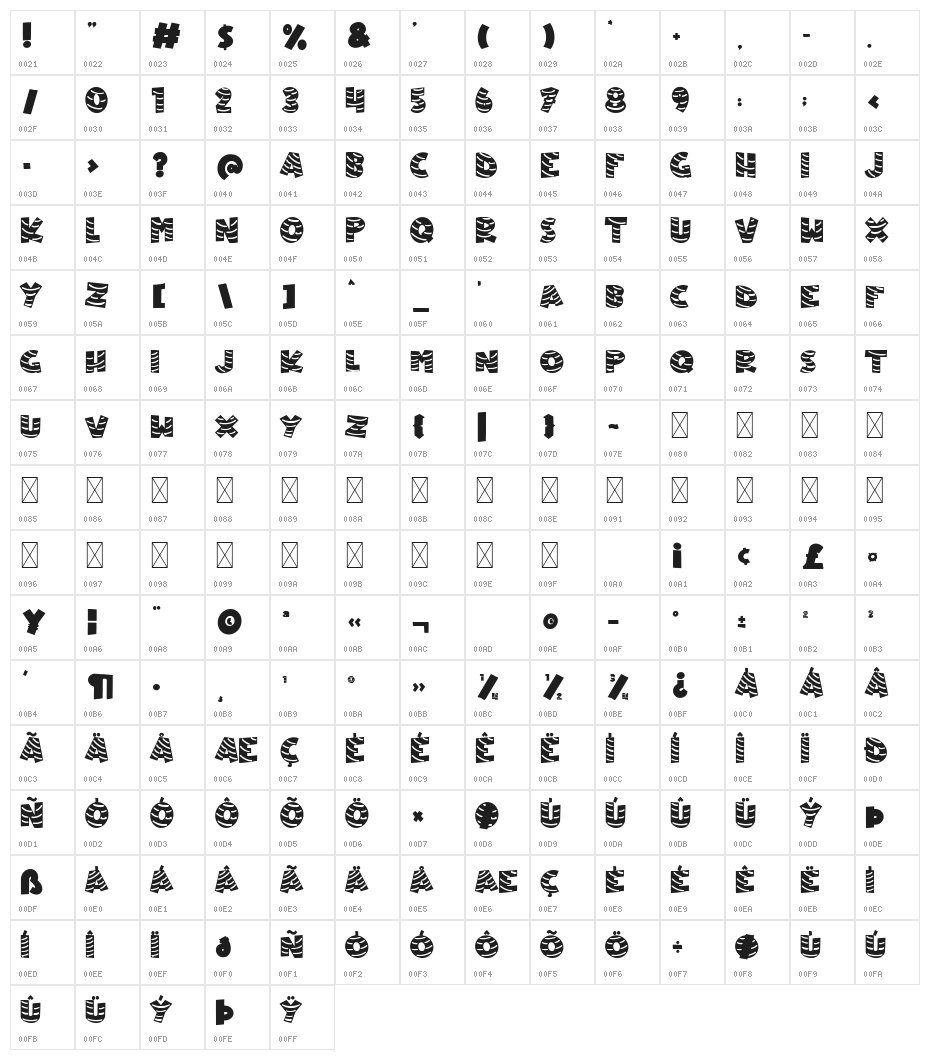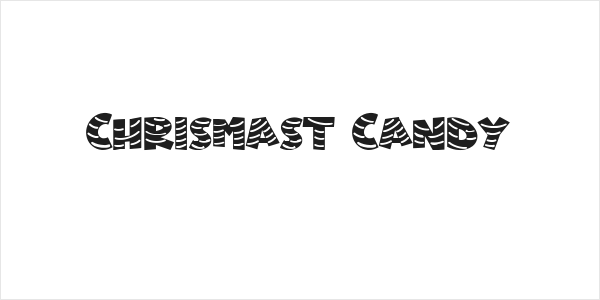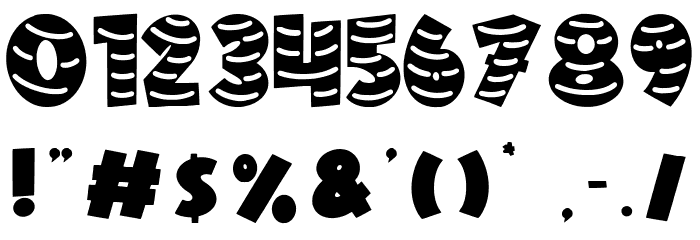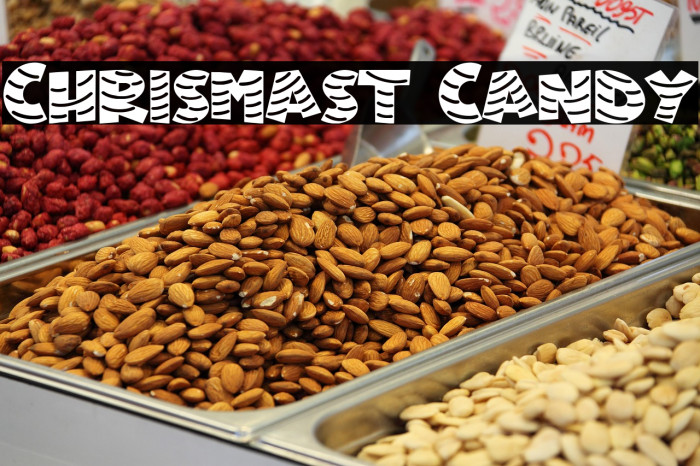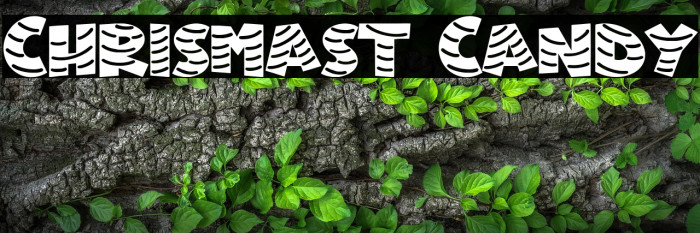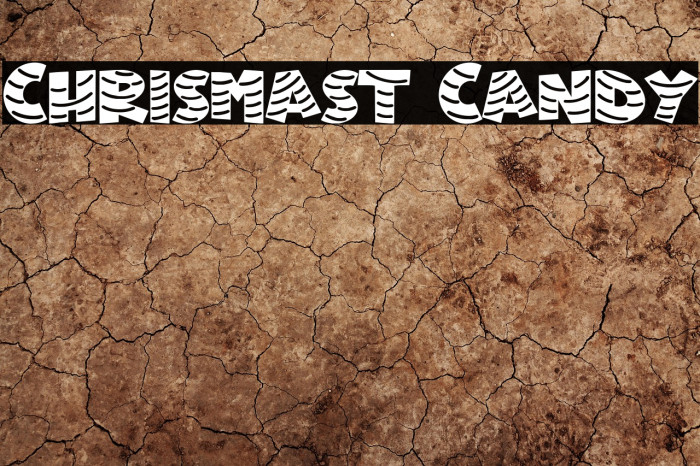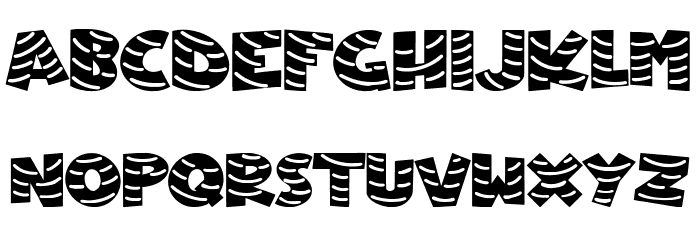
Chrismast Candy Font
Chrismast Candy Description
This playful and festive font features bold, candy cane-inspired stripes running through each character, evoking a sense of holiday cheer. The uppercase and lowercase letters are designed with a whimsical, decorative style that captures the essence of Christmas festivities. The numbers and special characters maintain the same candy-striped theme, ensuring a cohesive look across all text elements. The font's bold and eye-catching design makes it perfect for holiday-themed projects, adding a touch of fun and excitement to any design.